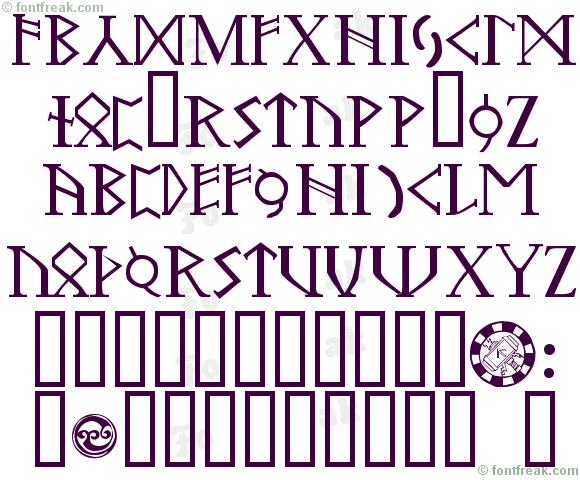
About Troll Bait
Troll Bait by Ray Larabie is a striking display font that falls within the decorative category, characterized by its whimsical and medieval-inspired design. The font features an adventurous aesthetic, with bold, angular shapes that evoke a sense of fantasy and storytelling. Its stroke weights vary, providing a dynamic visual impact that captures attention, while the slight contrast adds depth to each letterform. The spacing is intentionally tight, enhancing the compactness of the design, which is perfect for creating a bold statement.
This font is particularly well-suited for a variety of creative projects. For instance, it can elevate movie posters, especially those in the fantasy or adventure genre, by adding a touch of intrigue and excitement. Additionally, it works wonderfully for themed event invitations, such as renaissance fairs or gaming tournaments, where a playful yet sophisticated look is desired. Restaurant menus focusing on artisanal or unique dining experiences can benefit from Troll Bait's distinctive flair, while graphic designers looking to inject personality into branding materials will find it an excellent choice. Content creators seeking to engage their audience through social media graphics will also appreciate the font’s unique charm.
The target audience for Troll Bait includes graphic designers, small business owners, and content creators who are keen to make their visuals stand out. This font resonates with those who want to convey creativity and originality in their work. In conclusion, Troll Bait font free download offers a unique opportunity to integrate an eye-catching typeface into your projects. Its blend of fantasy elements and modern usability makes it a standout choice for anyone looking to add a touch of whimsy to their designs.